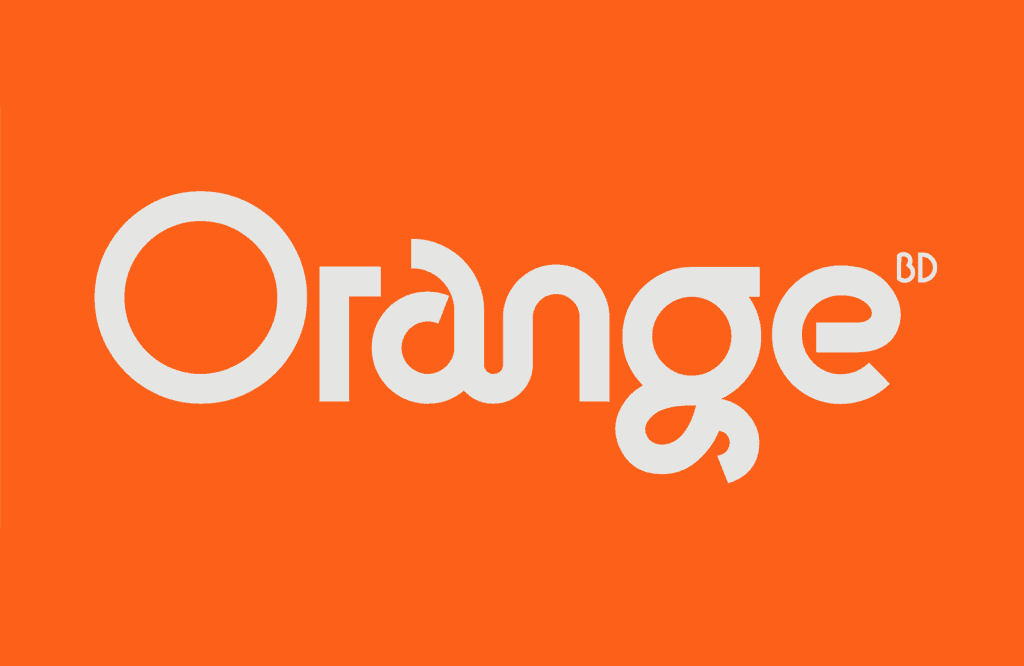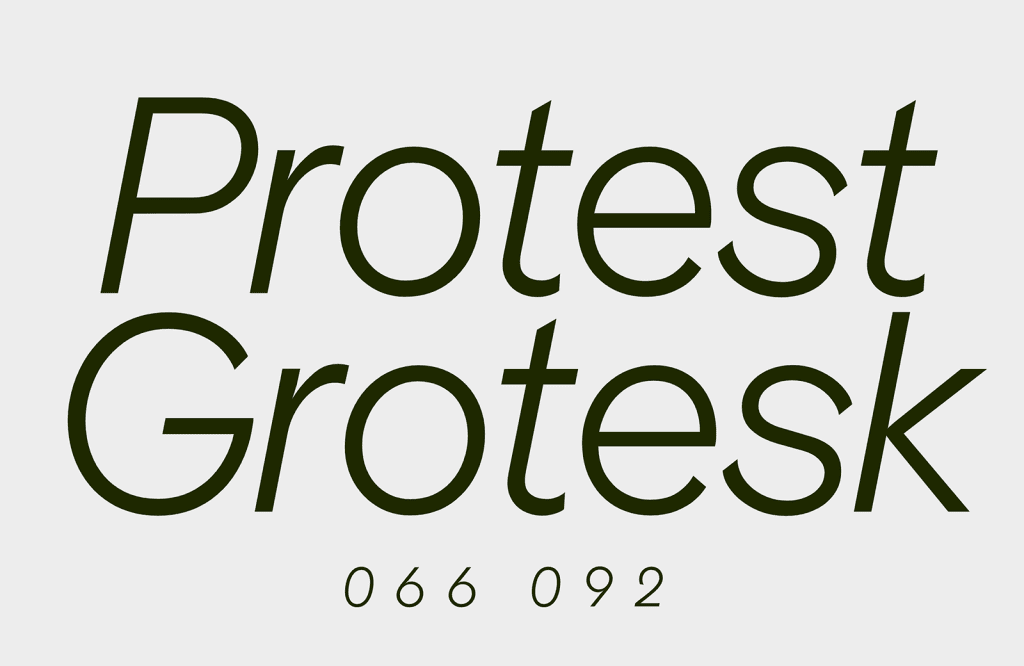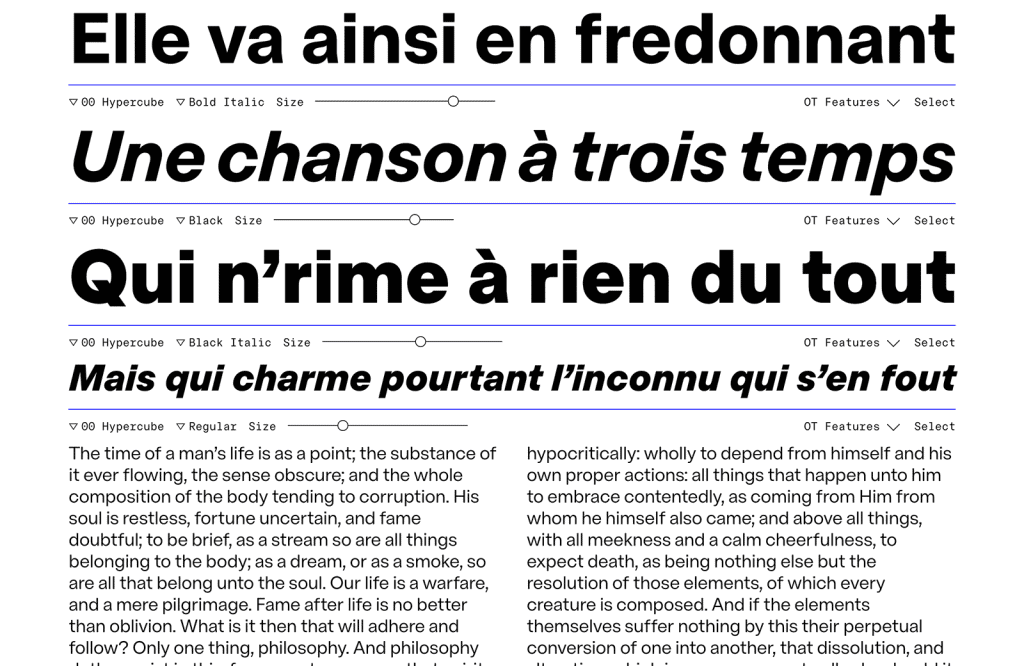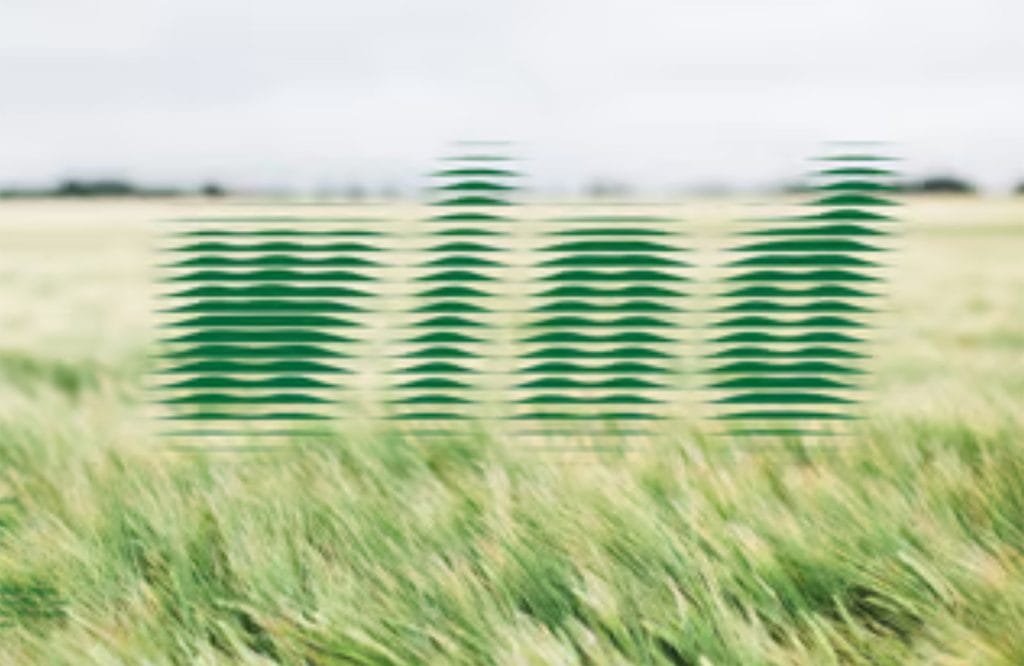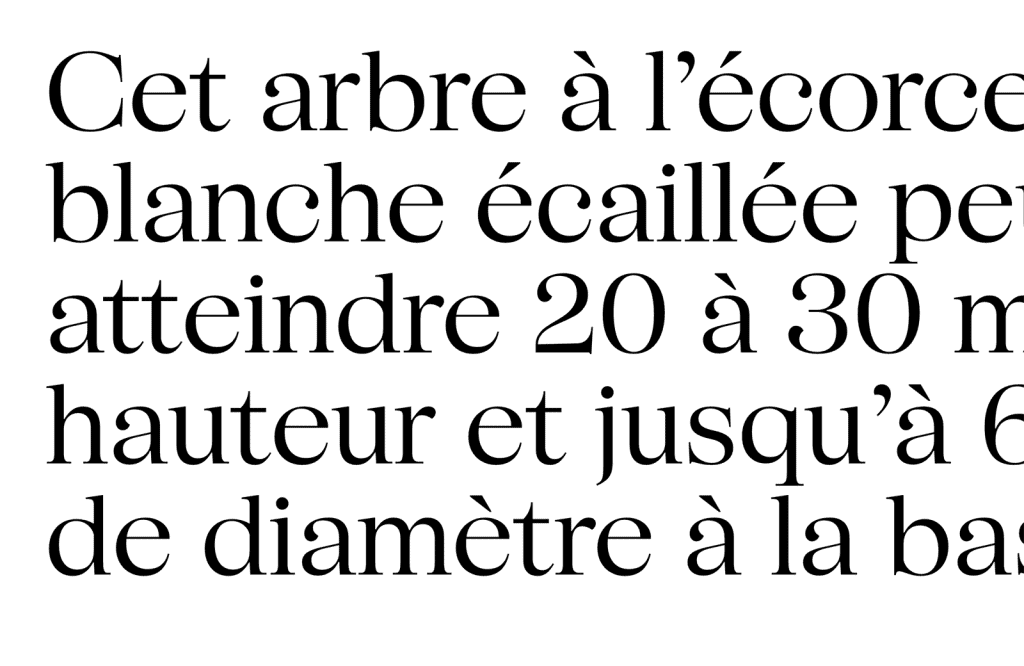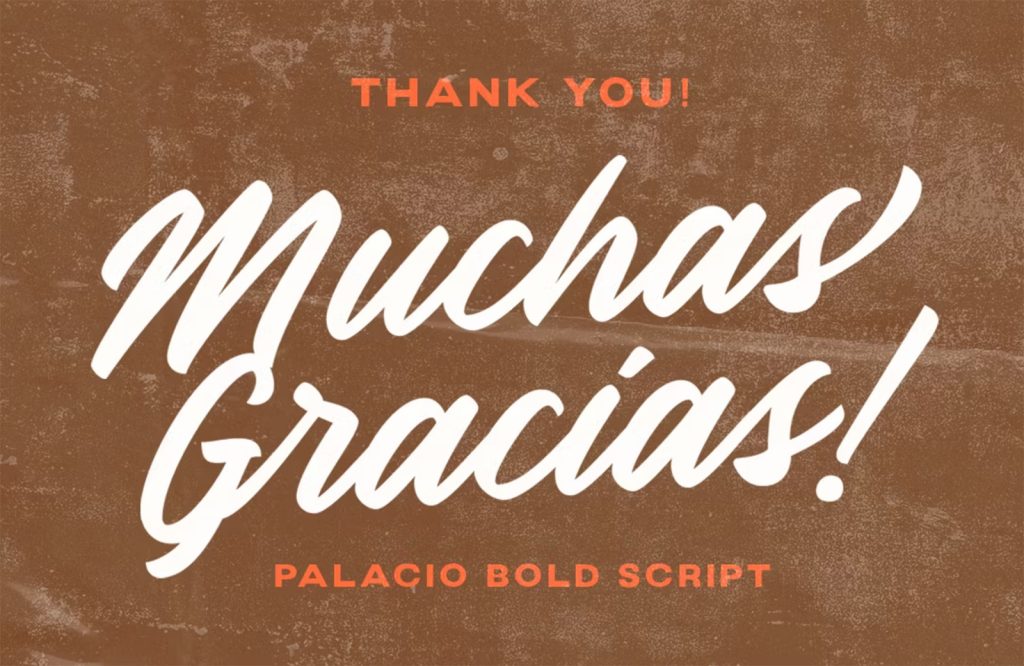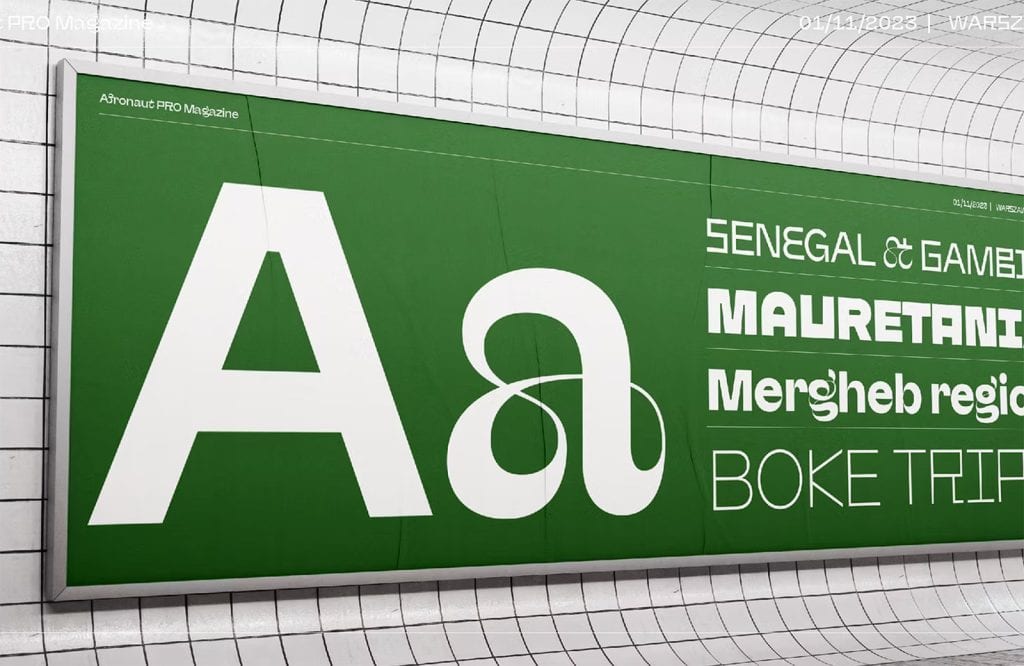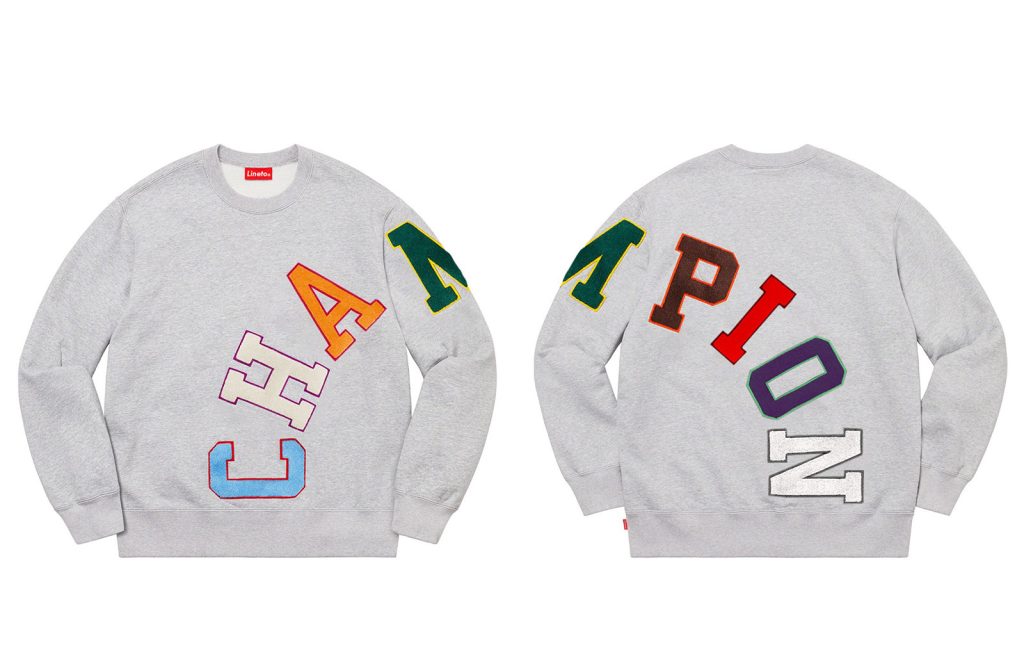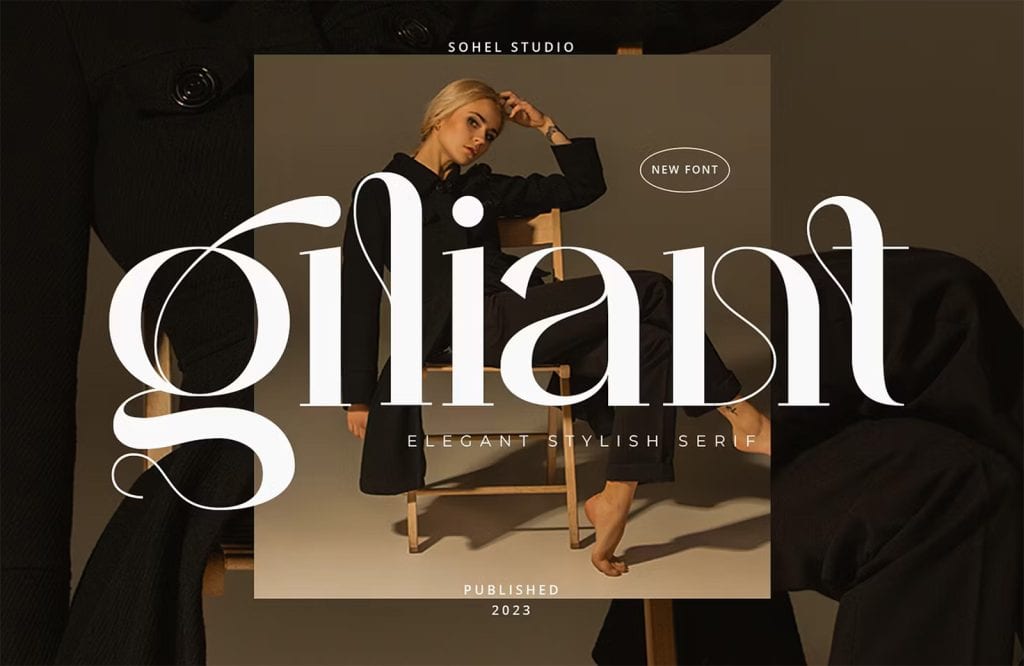
In this month’s roundup of the best new fonts, we find a large number of vintage, retro, and revival typefaces. Is it that 2024 will be a heavily retro year, or were these designs simply created at the tail-end of 2023, and we’ll have to wait for February and March for 2024’s trends to emerge? Only time will tell.
BD Orange
BD Orange is a script-like grotesque typeface with a vintage sci-fi feel. It includes variable weights from Thin to Loud Black and features tons of alternatives and optional ligatures. It’s an excellent choice for a logotype when you’re looking for something retro but clean and clear.
Protest Grotesk
Protest Grotesk is another retro-feeling grotesque typeface, this time drawing inspiration from early 20th-century constructed letterforms. It comes as a variable font and in a range of weights from Thin to Black, plus their accompanying italics. It’s an excellent option for a corporate typeface.
Hypercube
Hypercube is yet another retro sans-serif, not grotesque this time, but taking its cue from mid-century Swiss modernism by way of 90s and 00s office aesthetics. It works better on screen than fonts from that era, but it still manages to evoke the turn of the millennium and the early days of the web.
Baram
Baram is a unique typeface that creates a sense of motion and impermanence by constructing its letters out of waves. It would have been a gift to the glitch aesthetic a few years ago. It would make a great starting point for designing a logo that needs to evoke speed.
SFT Schrifted Serif
SFT Schrifted Serif is a beautiful serif font with graceful curves and fine details. Inspired by the Stockholm districts of Gamla Stan and Södermalm, it comes in three optical sizes, Text for body text, Display for headings, and Subhead for smaller headlines. It’s not yet finished, but you can download the beta version.
Palacio
Palacio is a nice, clean brush script that can be used in place of lettering for a warm, personal feel. It includes plenty of alternate characters and optional ligatures so you can adapt the shapes to your content. It’s a good choice for a more relaxed logotype.
Afronaut Pro
Afronaut Pro was inspired by a blend of Latin and Arabic typography and Zambia’s all-but-forgotten space program. It blends simple geometric sans with flowing calligraphic shapes. There are six weights, from Ultra Light to Bold, and there’s a variable font available.
Champion
Champion is a modern revival of the slab serifs typically seen on sports jerseys. The angular shapes are simple, bold, and almost (but not quite) monospaced — the utilitarian aesthetic works well for editorial design. There are four variations: Champion, Champion Condensed, Champion Sans, and Champion Sans Condensed.
Giliant
Giliant is a new option for devotees of the Art Nouveau trend. It’s a graceful display serif with a high contrast and fine details. There’s only one weight available, but it works well for editorial or brand design projects that evoke luxury and desirability.
Octave
Octave is a serif typeface reviving French Old Style designs. It features some rare musical emojis and symbols, making it ideal for text describing music. Its open counters and regular rhythm make it highly legible, and it’s a good upgrade for anyone looking to refresh documents currently using Times.
Art Company Mono
Art Company Mono is an extremely elegant monospaced serif. It was initially intended for display purposes, but it maintains its readability well at small sizes, and this, combined with the monospacing, makes it excellent for tabular data. There are currently four weights, from Thin to Bold, and their accompanying italics.
Super Ground
Super Ground is an excellent display font that uses lowercase letters to extend the width of characters, allowing you to create text with variable width and rhythm easily. It’s ideal for threading through dynamic images and is crying out to be used in editorial design.
Rossela
Rossela is an elegant serif with classical proportions. It’s ideally suited to display text and features several ligatures that create points of interest — the RO and KO ligatures are particularly pleasing. It’s both modern and formal. There’s a single weight and an italic.
Sittl Pro
Sittl Pro is a geometric sans with rounded corners. It evokes a subtle retro feel and is ideal for logo design and signage. There are four weights, from Regular to Black, and accompanying italics.
Teenage Tropics
Teenage Tropics is a self-consciously 1960s-inspired display face that blends retro styling with a tropical vibe. It ripples like sunlight on water and is precisely what we need to add some warmth to our January.